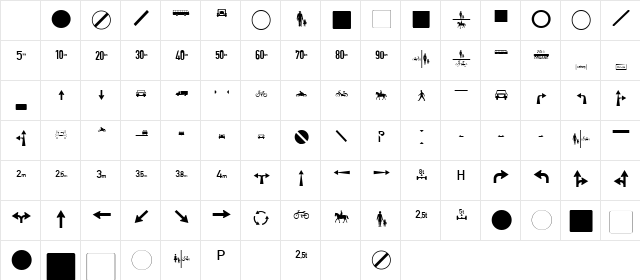
Complete Zeichen Zweihundert Alt Regular glyph index. Displaying only characters natively supported by Zeichen Zweihundert Alt Regular font.
Zeichen Zweihundert Alt is a composed and adaptable typeface that performs quietly and consistently across a wide range of design contexts.